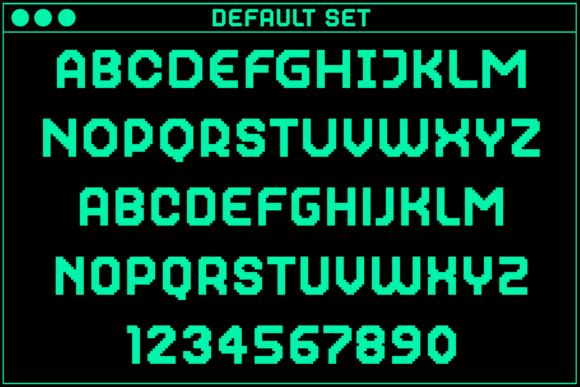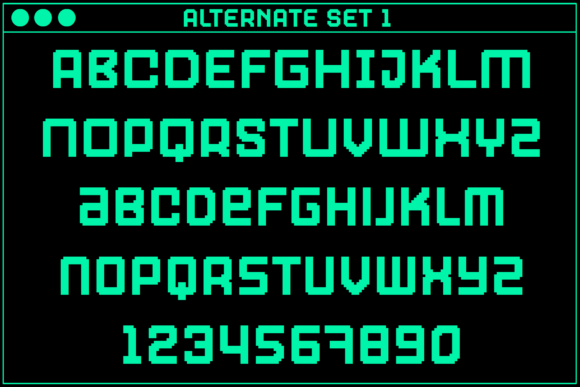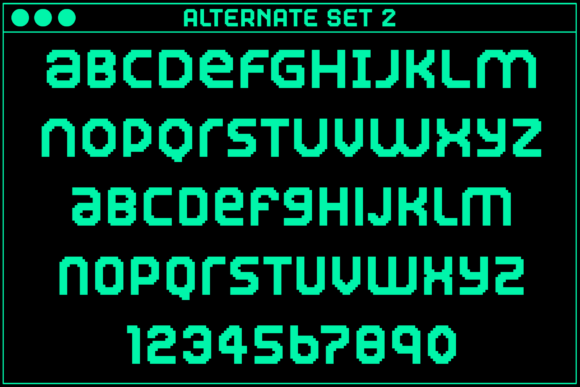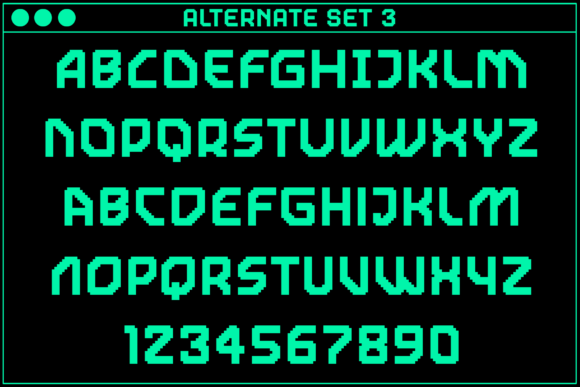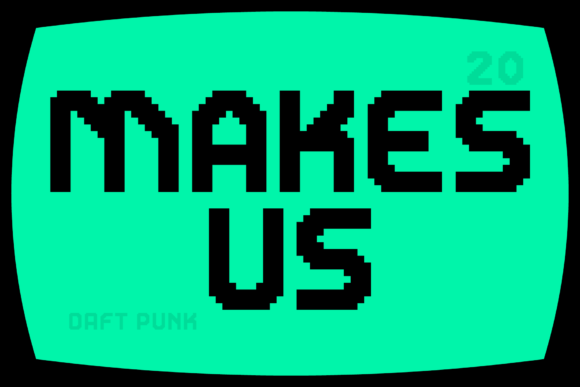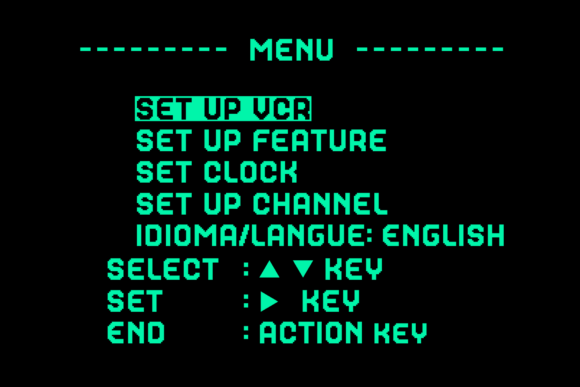
Introduction to Gamer Regular Font
As you’re pouring over the final touches of your latest creative project, and you need that one special element to make it truly stand out – you’re in the right place. For designers, having the perfect font can be the difference between a project that’s merely good and one that’s truly exceptional. And when it comes to unique, high-quality design resources, the Gamer Regular Font is an absolute game-changer.
Imagine adding a touch of retro-futurism to your design with a font that’s as cool as it is quirky. The Gamer Regular Font is the perfect way to add some visual interest to your creative project, whether you’re working on a graphic novel, a video game, or even a marketing campaign. And the best part? It’s completely free to download, so you can add it to your design arsenal without breaking the bank.
Key Features of Gamer Regular Font
- High-quality design for creative projects, ideal for use in gaming, technology, and entertainment contexts.
- Features a clear and legible font style, with a font size range of 8-72 points and a resolution of 300 DPI.
- Designed specifically for use in digital environments, with a focus on readability and visual impact.
- Perfect for use in digital signage, video games, and other creative projects where a modern and sleek font is required.
Honest Review: Gamer Regular Font
I recently came across the Gamer Regular Font, and I was excited to put it through its paces. As a designer, I’m always on the lookout for high-quality fonts to elevate my creative projects.
Here’s what I liked about the Gamer Regular Font:
- ✨ The quality is top-notch, with crisp lines and a professional look.
- ✨ The font is highly versatile, making it suitable for a wide range of design projects.
- ⚠️ The font only comes in a single weight, which may limit its use in certain design scenarios.
- ⚠️ The font doesn’t have a transparent background option, which can make it difficult to use in certain design contexts.
Overall, I’m impressed with the Gamer Regular Font. While it may not be perfect, its strengths far outweigh its weaknesses. If you’re looking for a high-quality font for your creative project, the Gamer Regular Font is definitely worth considering.
Tips for Getting the Most Out of Gamer Regular Font
Experiment with different font sizes, colors, and combinations to create unique and eye-catching designs. Use the transparent background to create a seamless look with your images and backgrounds.
Common Use Cases for Gamer Regular Font
Use the Gamer Regular Font in a variety of creative projects, including game graphics, logos, and text overlays. It’s also perfect for creating engaging social media graphics, presentations, and documents.